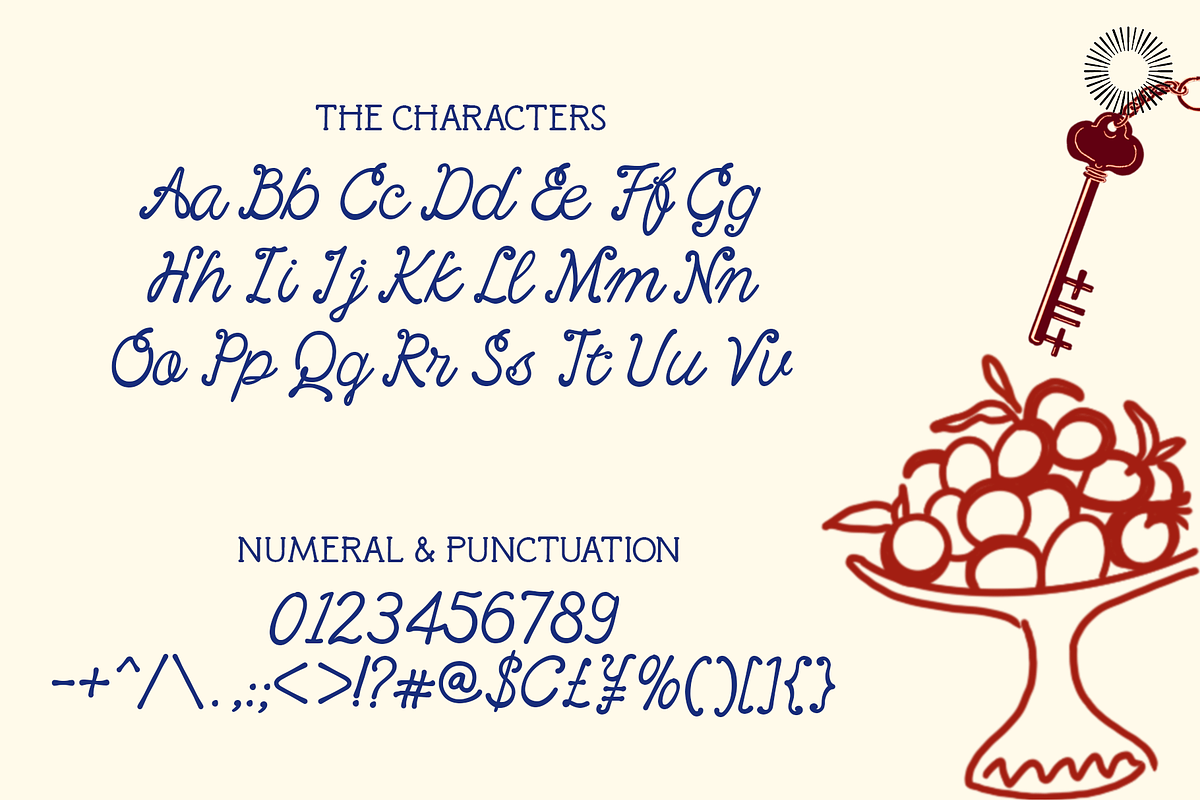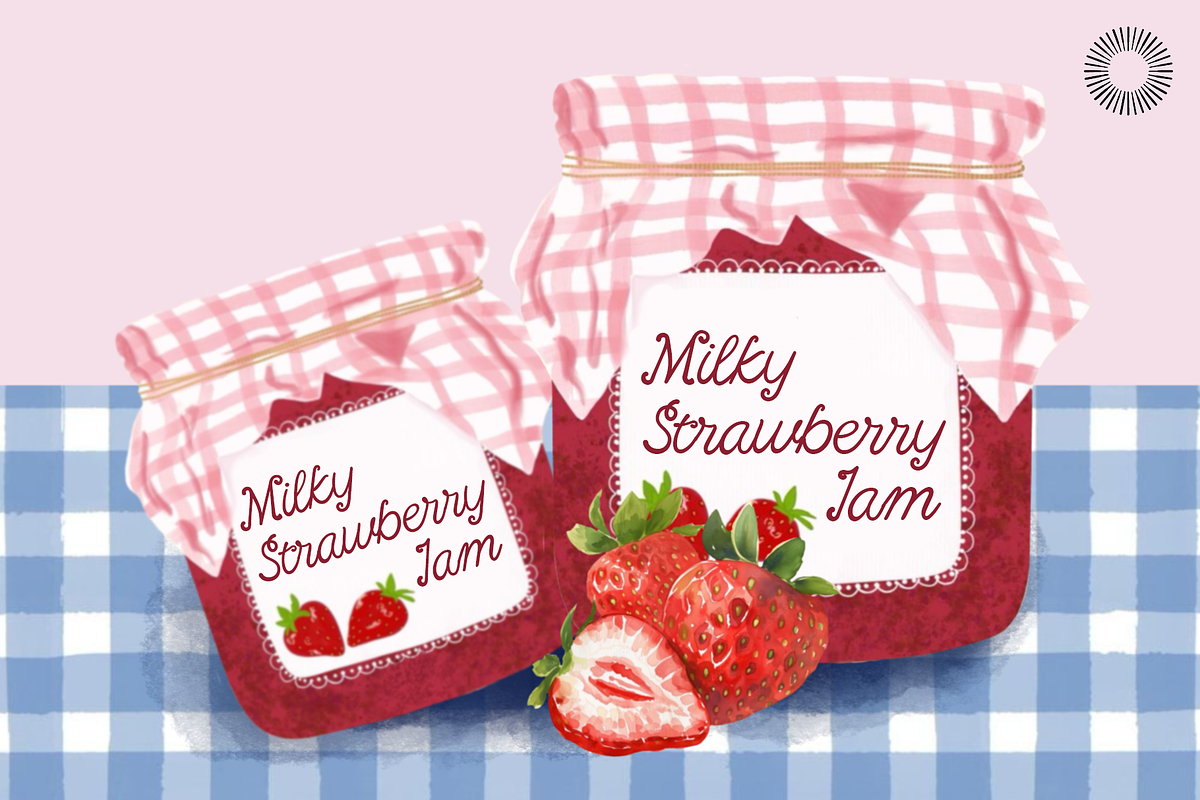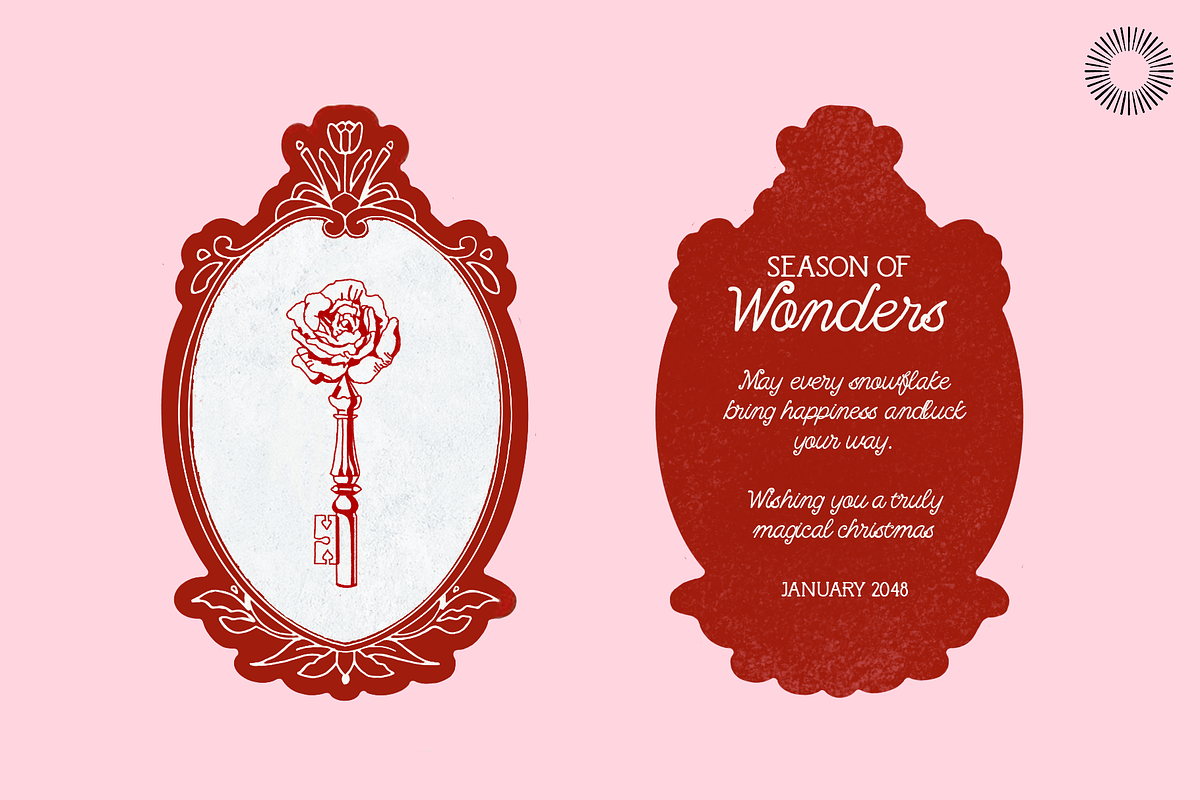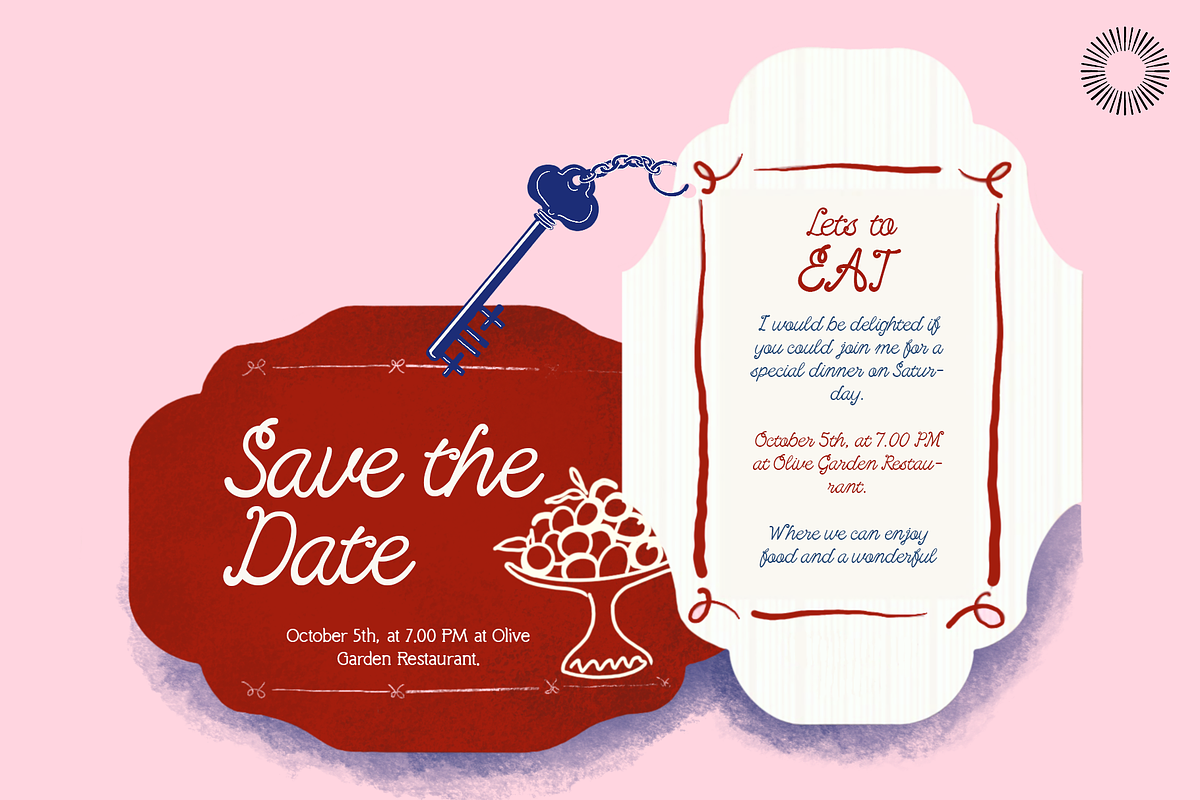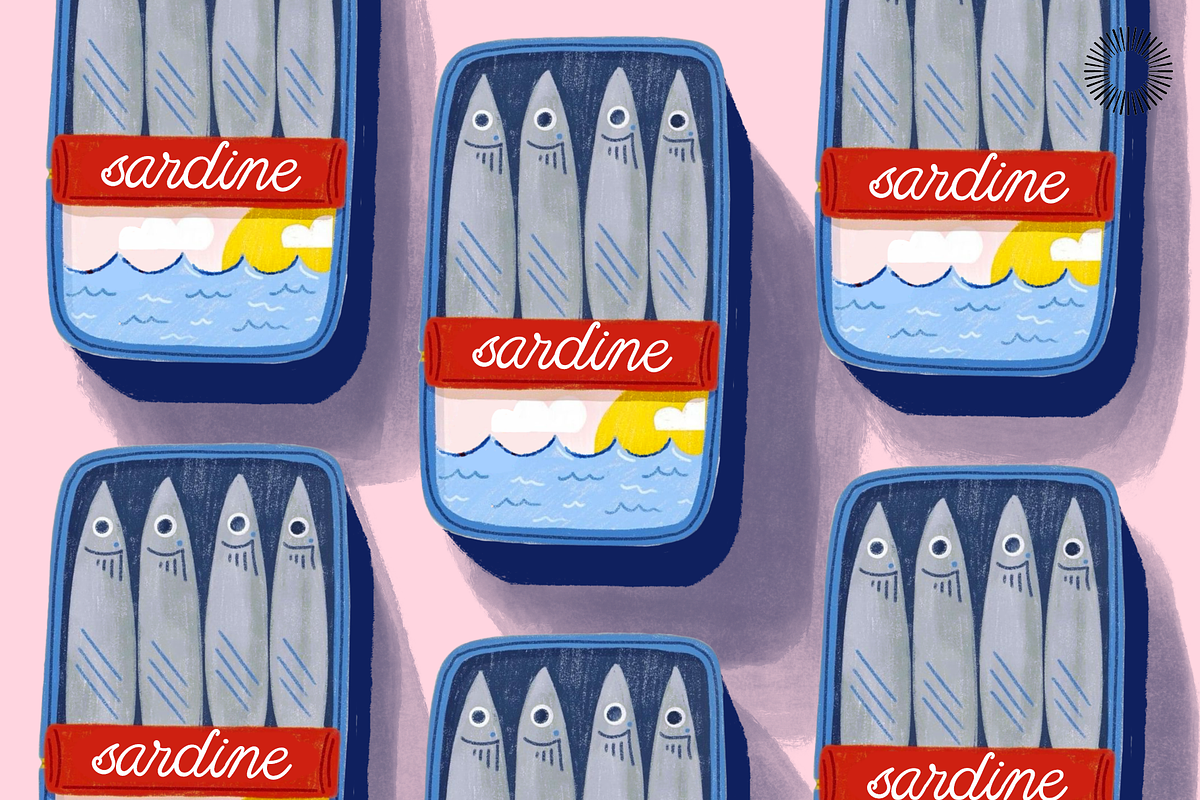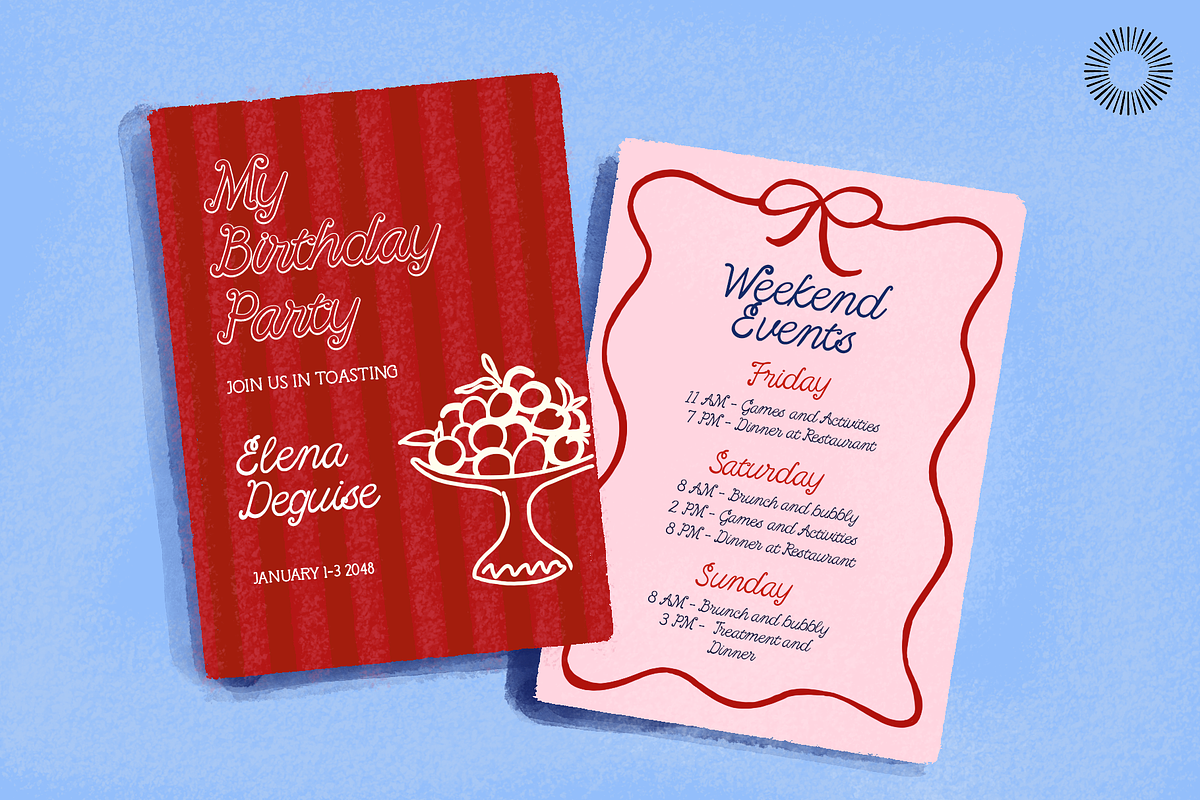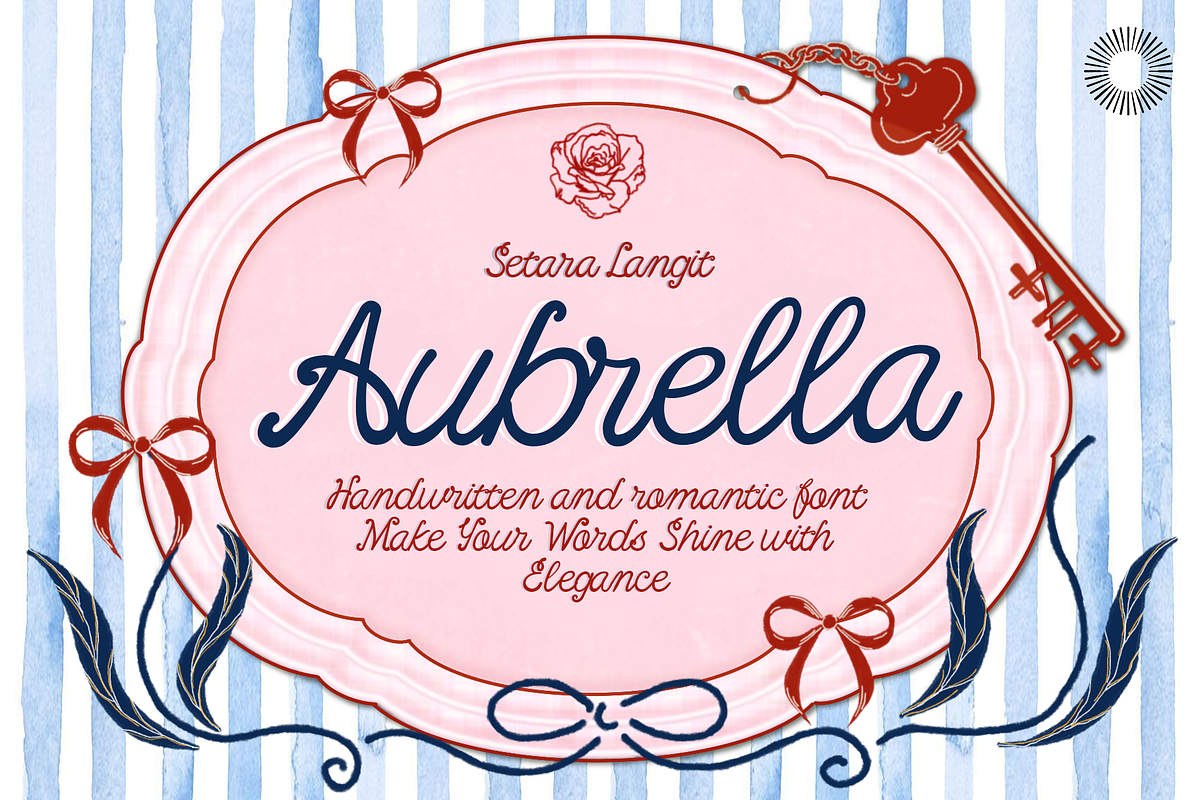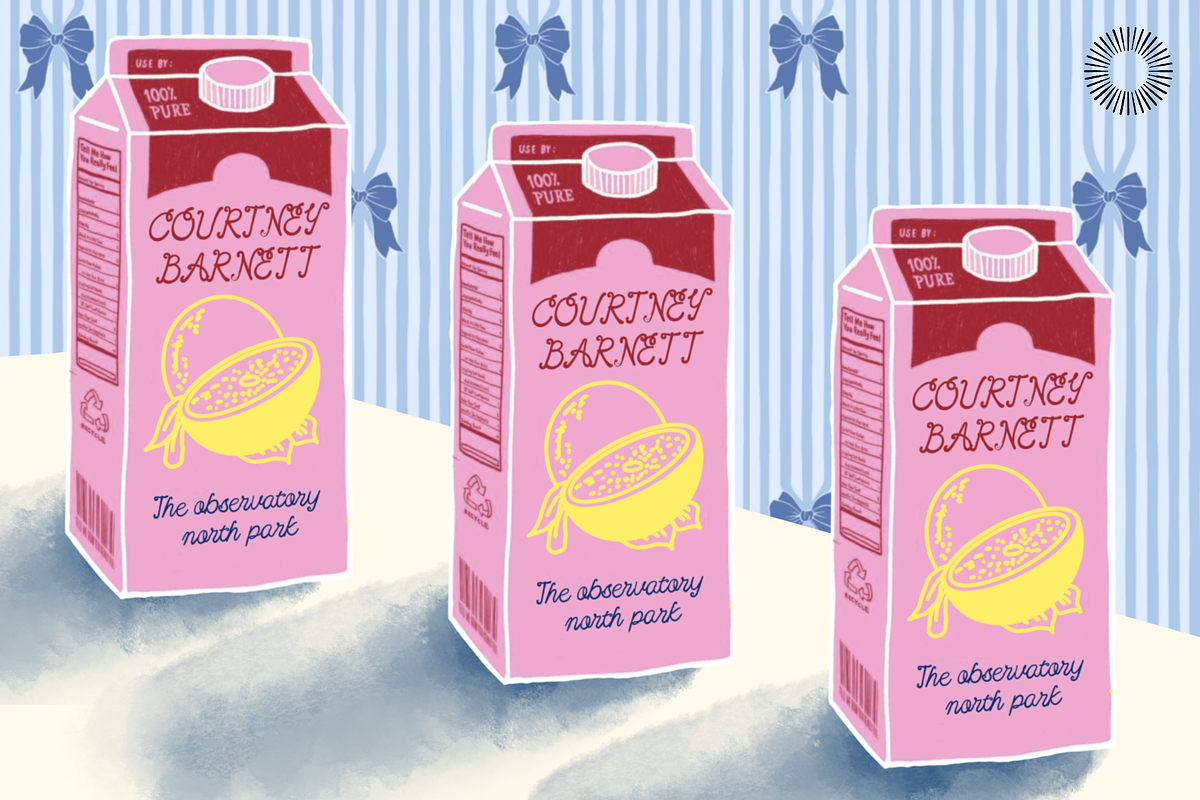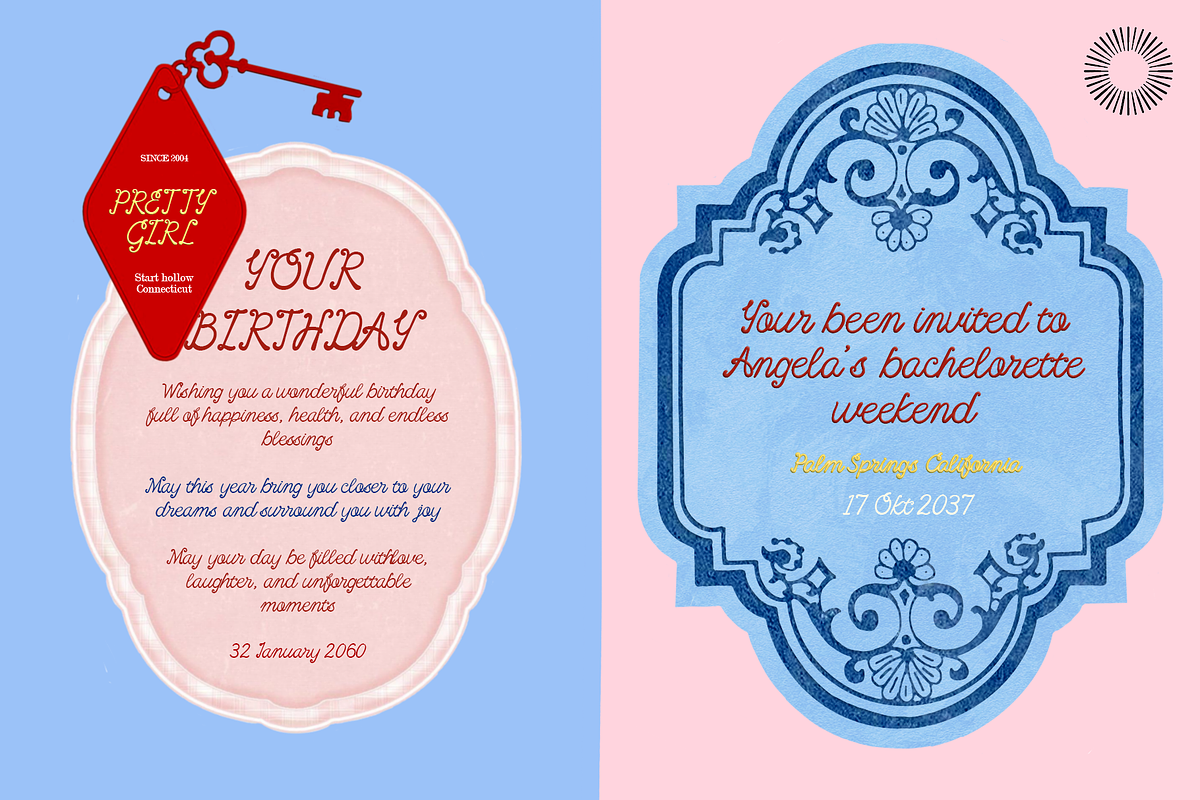
Aubrella - Whimsical Handwriting
Aubrella is a handwritten script that captures the beauty of gentle strokes and heartfelt emotion. With its smooth curves and graceful flow, this font adds a touch of romance and sophistication to any design. Perfect for wedding invitations, personal branding, or product packaging, Aubrella transforms simple words into elegant expressions. Let your designs speak with warmth, charm, and timeless beauty.